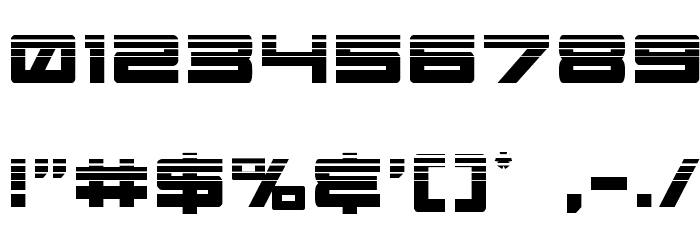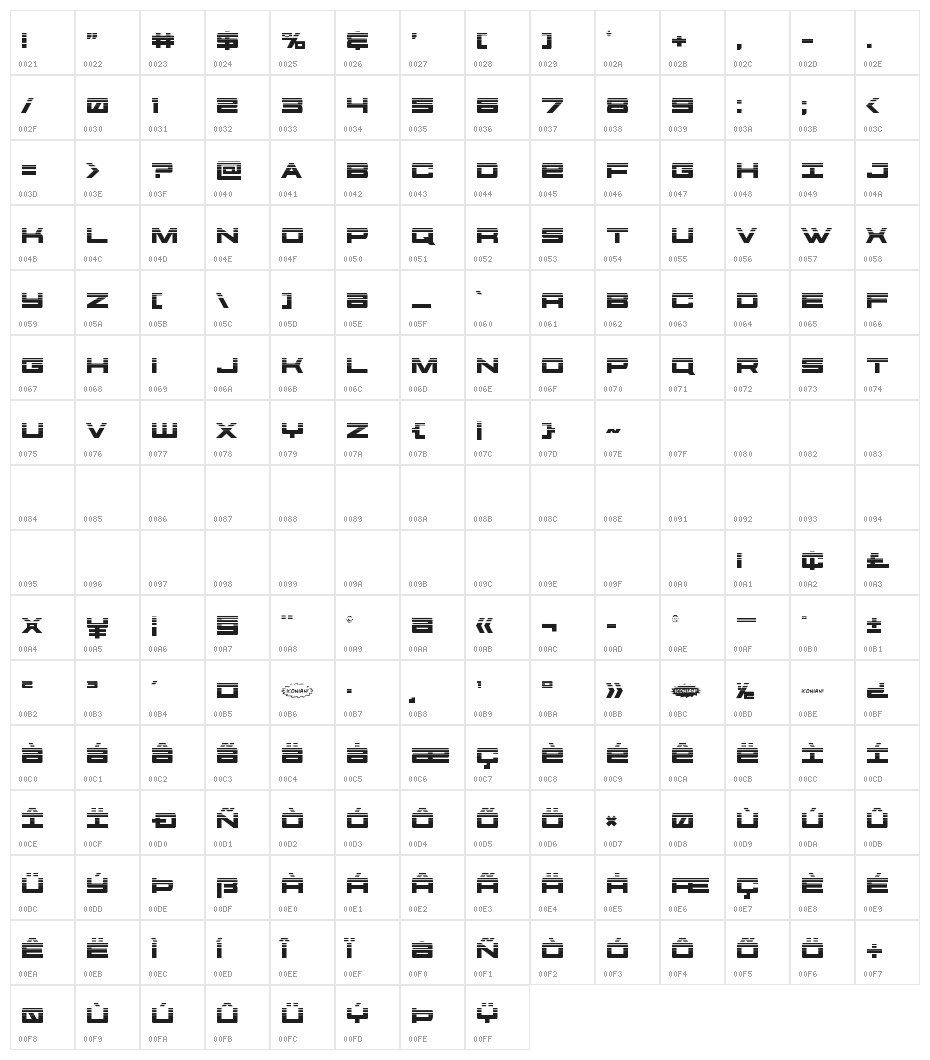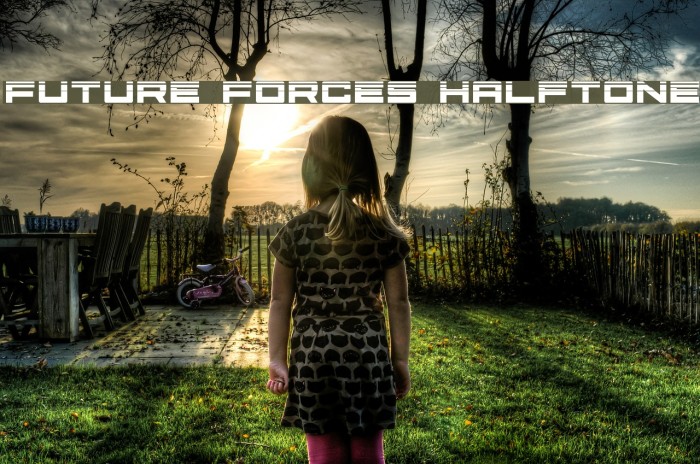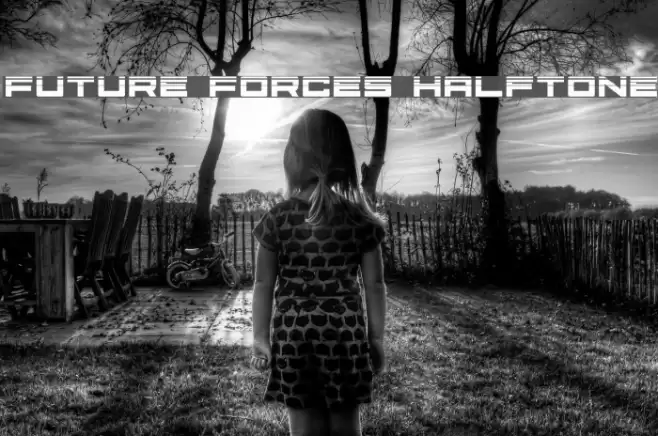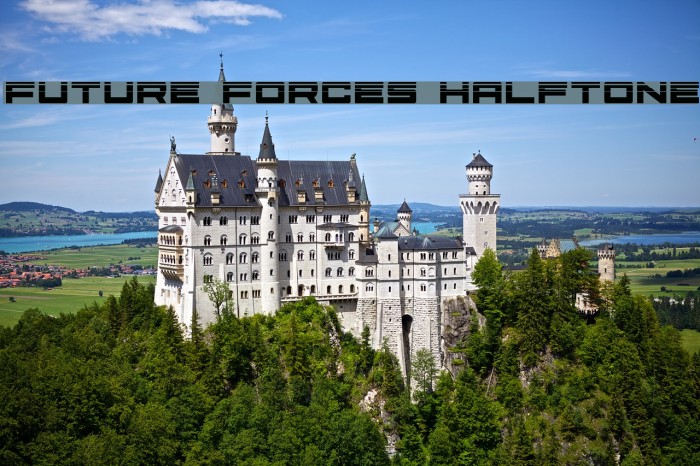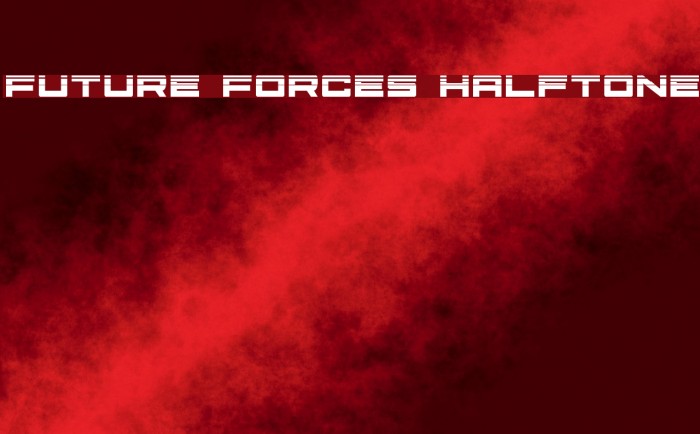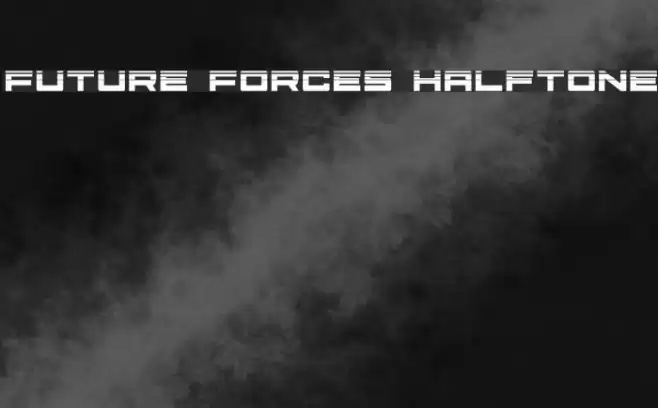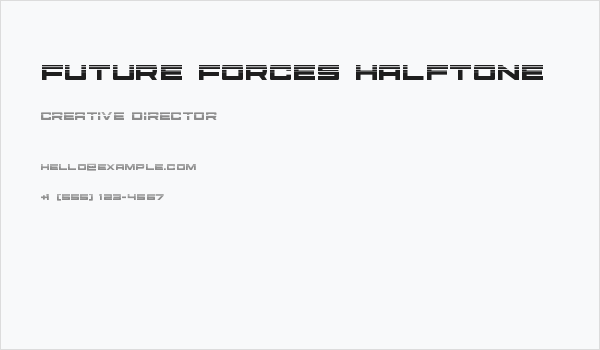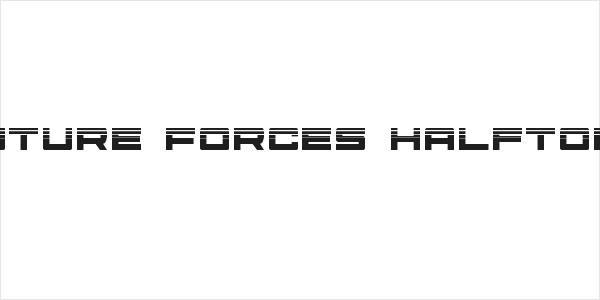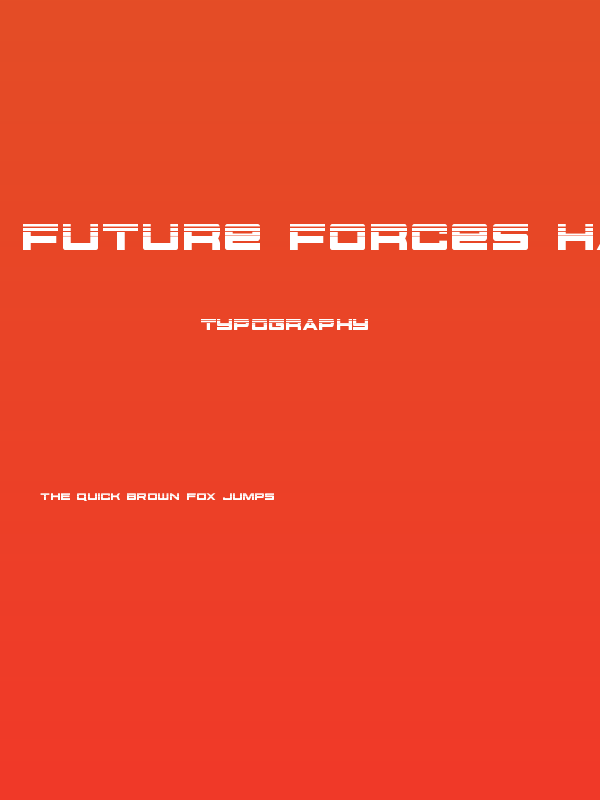
Future Forces Halftone Font
Future Forces Halftone Description
This font features a futuristic and bold design with a halftone effect that gives it a digital, tech-inspired appearance. The characters are constructed with sharp angles and geometric shapes, creating a sense of movement and modernity. The uppercase and lowercase letters maintain a consistent style, with the halftone pattern adding a unique texture to each character. Numbers and special characters follow the same design principles, ensuring uniformity across the font. The overall look is striking and eye-catching, making it suitable for projects that require a modern and innovative touch.
Proposed ProjectsIdeal for tech-themed posters, video game graphics, sci-fi book covers, and digital branding.